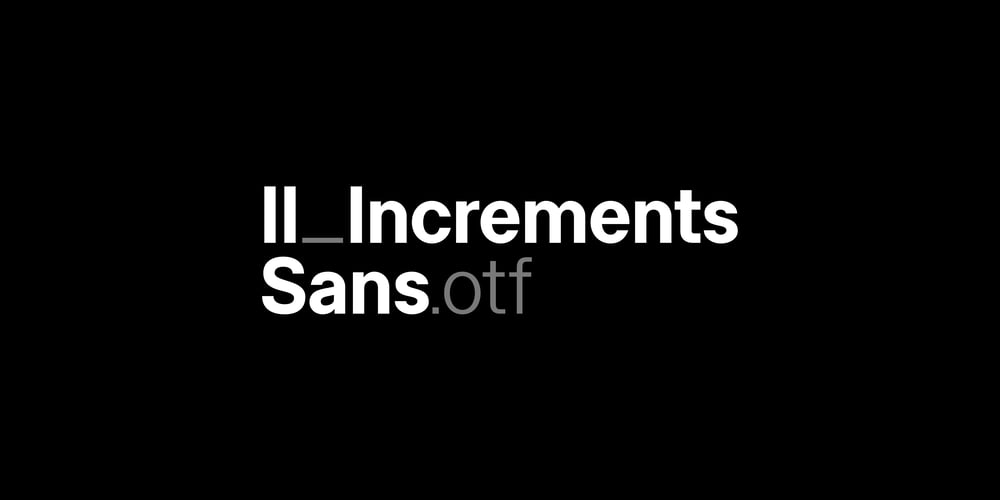
II Increments Sans
II Increments Sans font
II Increments Sans Font Family was designed by Evan Lelliott and published by Increments. II Increments Sans contains 10 styles and family package options. Informed by classic grotesk proportions and principles within musical theory, II Increments Sans results in a rhythmic and composed sans-serif. Set within a structured grid, the intonation and harmony between its functional principles and emotive characteristics allow for use at both text and display sizes.